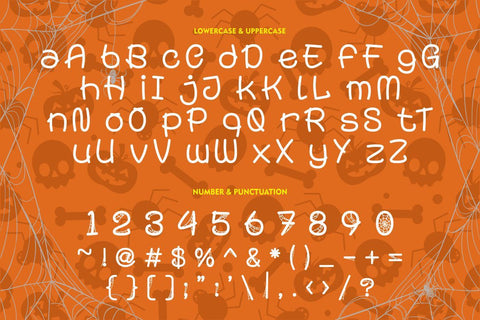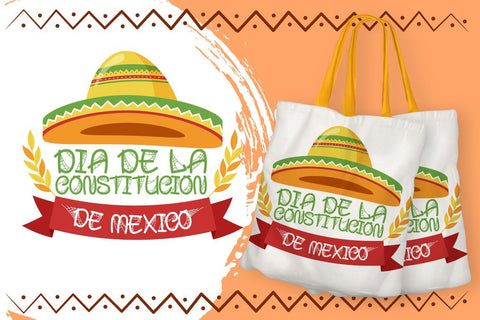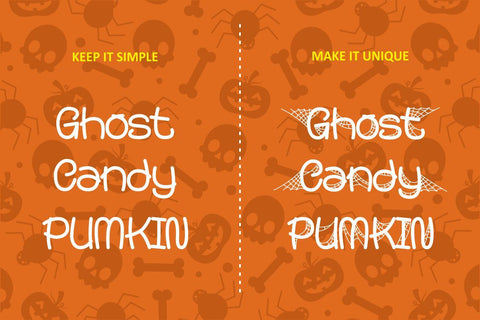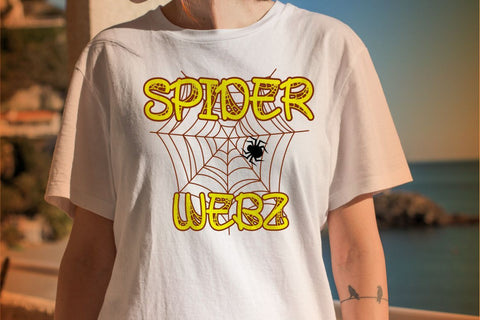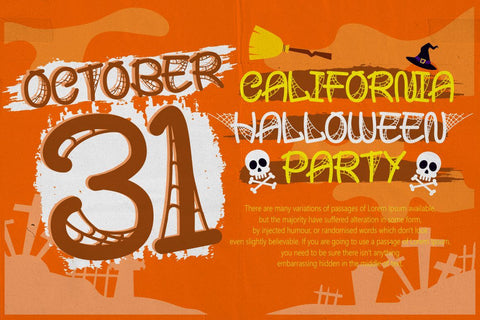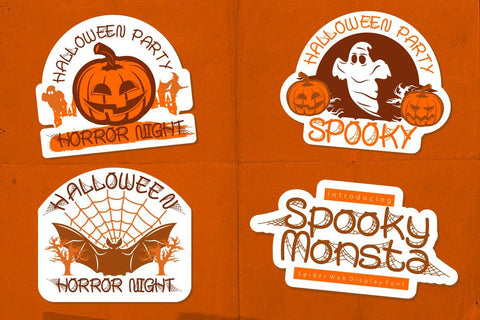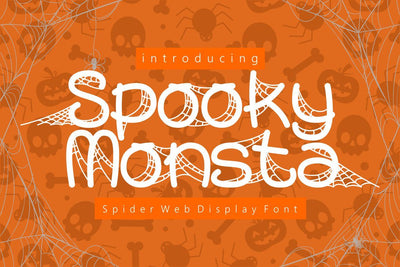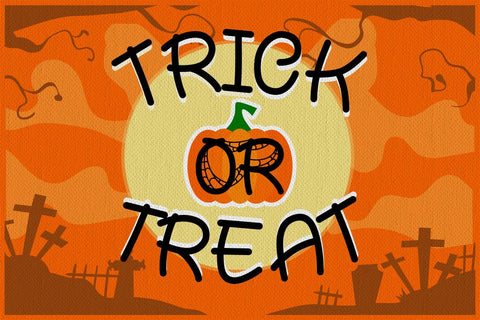
Spooky Monsta - Spider Web Display Font
Spooky Monsta is a spider web display font. This font is inspired by an old embossed nameplate with cobwebs in it. So I made it a font. This font has an uppercase and lowercase version that doesn't have a cobweb, so you can be more creative. In addition, this font has a ligature feature that makes the cobwebs of each word cooler.
Spooky Monsta would be perfect for Logo, title, logotype, cover, headline, apparel, comic, cover books, cards, posters, or anything that requires a horrror or scarylook!
Comes with feature :
- Number, Punctuation And Symbols
- Multilanguage Support
- ALternate
- Ligature